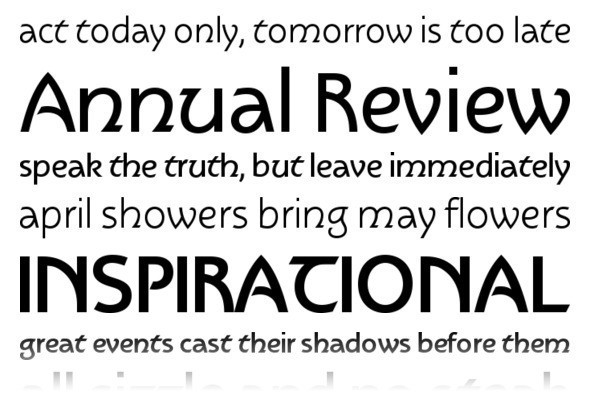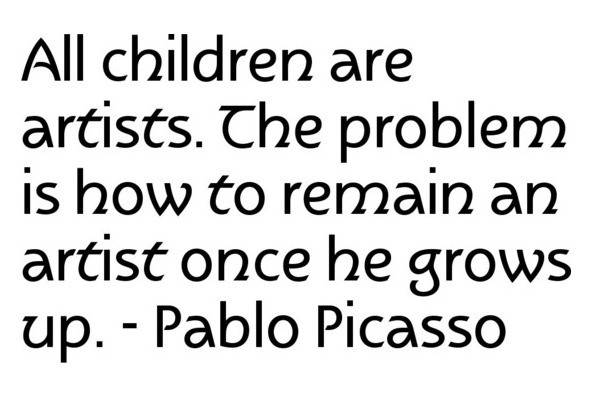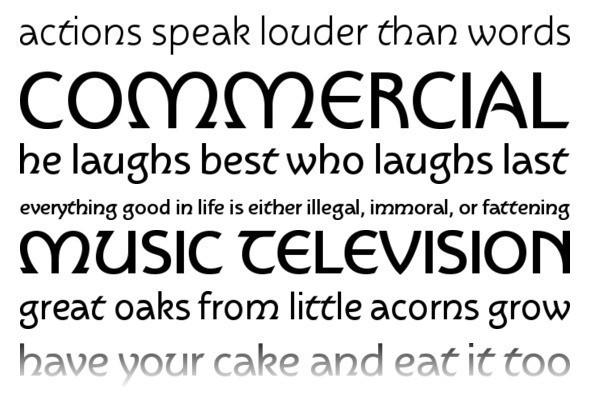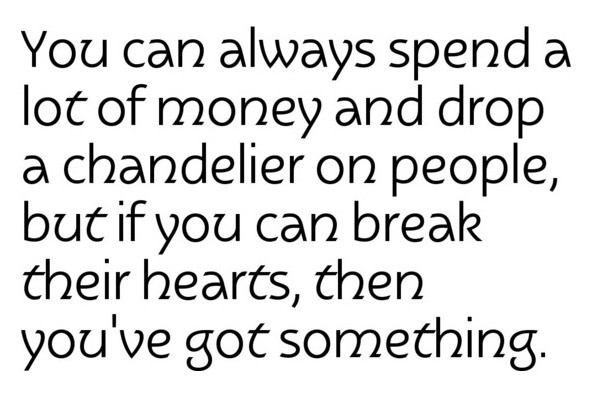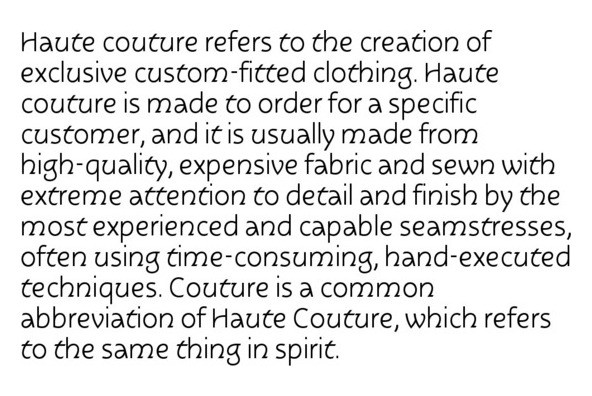
Rotate Klassik
Rotate Klassik is a display font originally designed by Hellmut G. Bomm in 2004. Rotate Klassik contains language support for West, East, Turkish, Baltic, and Romanian.